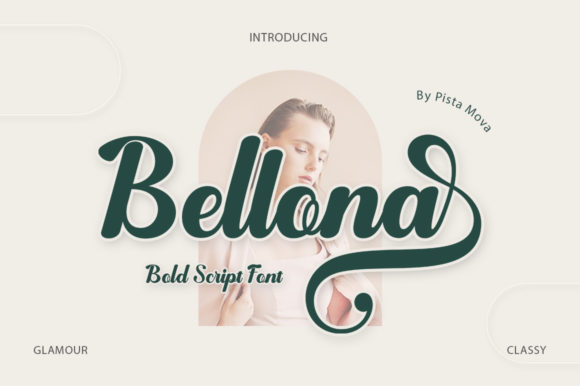
Unleash the Enchanting Beauty of Bellona: A Font that Captivates Hearts
In the realm of typography, there exists a font that dances with grace and elegance, leaving a trail of enchantment wherever it goes. This font, known as Bellona, is a masterfully crafted script font that weaves its magic into every word and letter it touches. Step into a world where your designs come alive with a touch of sophistication and timeless allure.
Meet Bellona, the Font that Speaks Charm and Elegance
Bellona is a script font that embodies the essence of charm and elegance like no other. Its flowing lines and graceful curves evoke a sense of timeless beauty, making it the perfect choice for a wide range of design projects. From wedding invitations that radiate romance to thank-you cards that exude gratitude, from quotes that inspire to greeting cards that warm hearts, Bellona adds a touch of magic to every creation.
A Versatile Muse for Logos, Business Cards, and Beyond
With its versatile nature, Bellona gracefully adapts to a myriad of design endeavors. It lends its charm to logos, imbuing them with a distinctive personality. Its presence on business cards ensures an unforgettable first impression, leaving a lasting impact on potential clients. And when it comes to handwritten touches, Bellona shines. It breathes life into invitations, posters, and flyers, transforming them into captivating works of art.
Discover the Enchanting Glyphs and Ligatures of Bellona
Bellona holds a secret treasure trove of enchanting glyphs and ligatures, accessible with ease through PUA encoding. These hidden gems unlock a world of creative possibilities, allowing you to add intricate details and flourishes to your designs. Explore the depths of Bellona's character set and uncover a symphony of visual delights that will leave you spellbound.
Embark on a Journey of Creative Enchantment with Bellona
Bellona is more than just a font; it's a gateway to a realm of creative enchantment. Its ability to evoke emotions, capture attention, and leave a lasting impression makes it an invaluable tool for designers seeking to create truly captivating works of art. Let Bellona be your muse, inspiring you to new heights of creativity and leaving your audience enchanted with every stroke of your design.